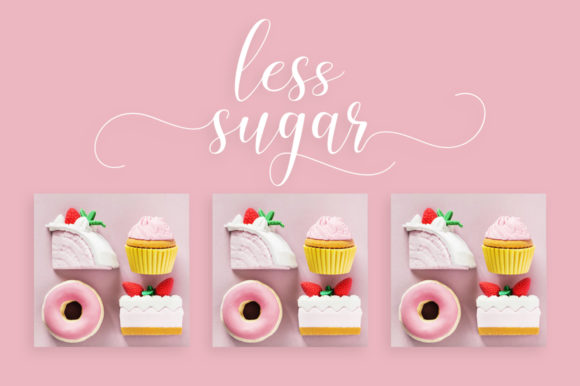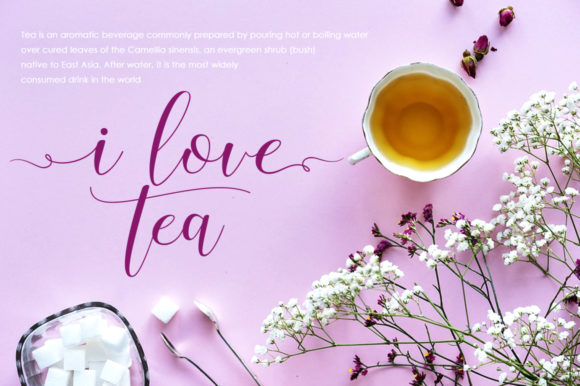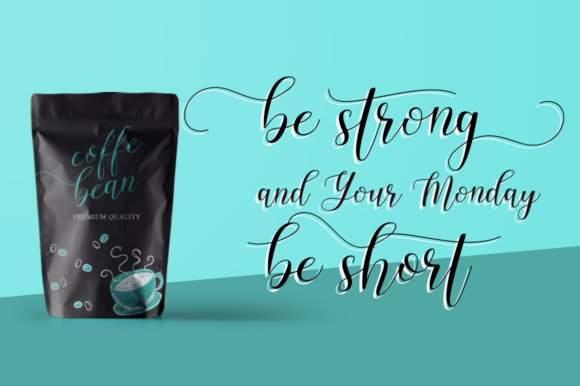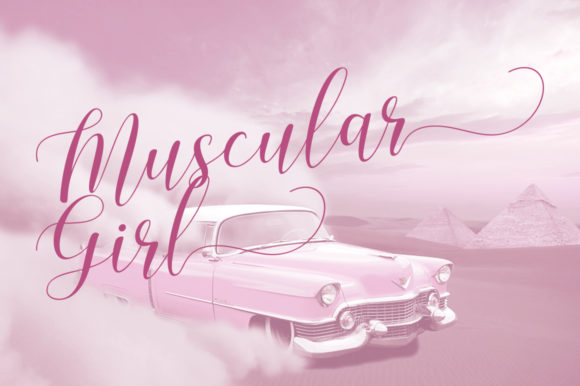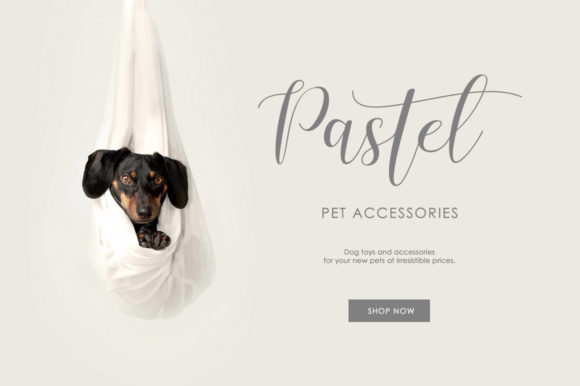
Machis Font
The Machis is a modern calligraphy font. It includes amazing swashes in 3 styles, which gives you the opportunity to create multiple unique designs with just this one download.
It is suitable for logos, web, stationary kits, banners, greeting cards, and every other design which needs an elegant touch.